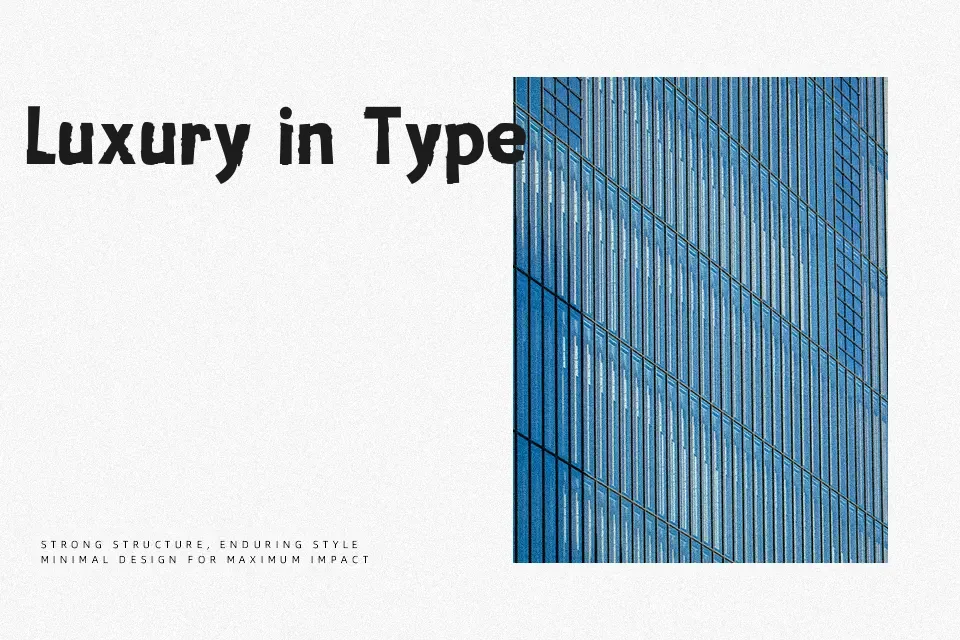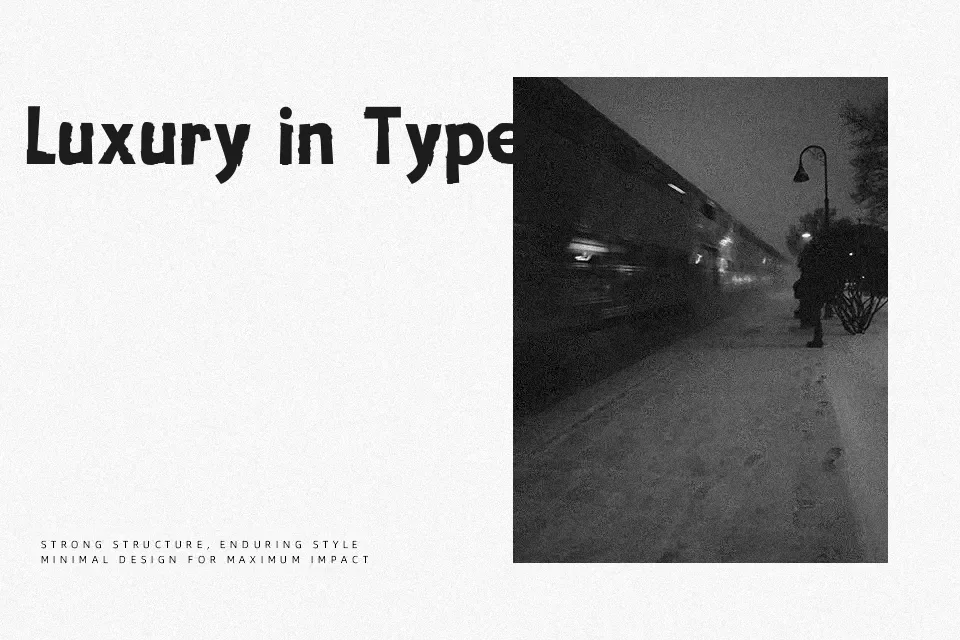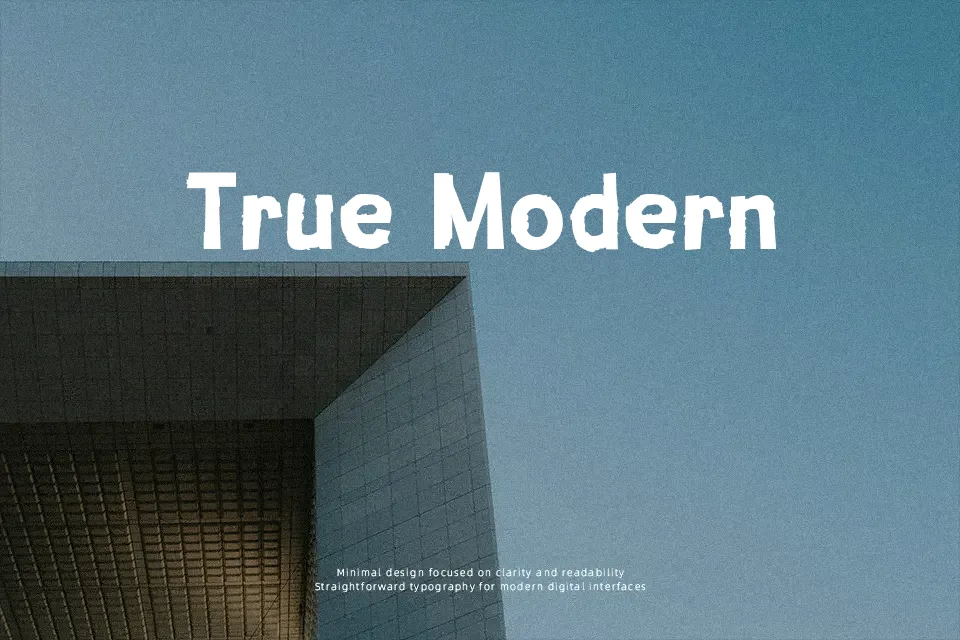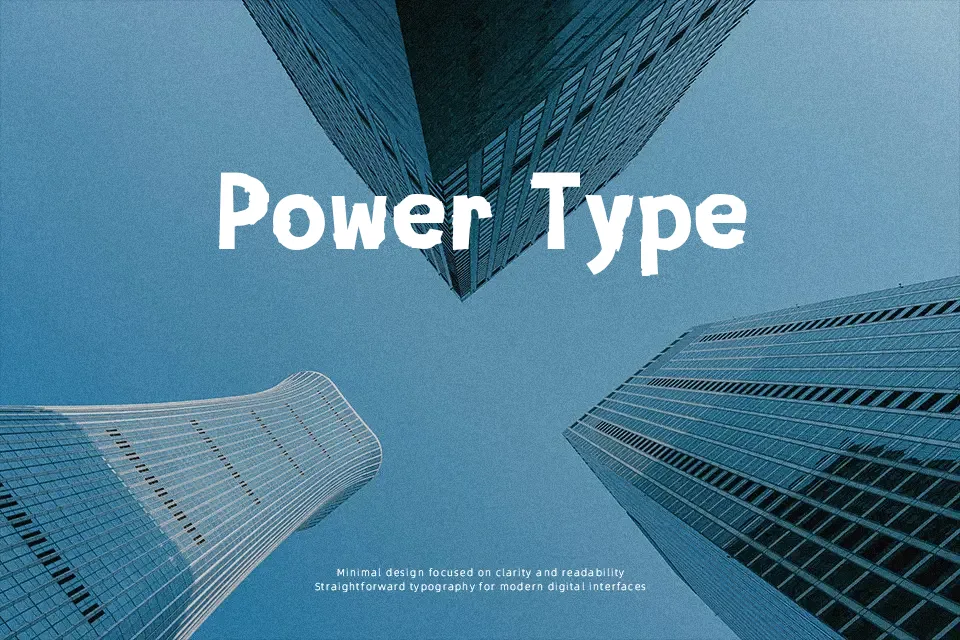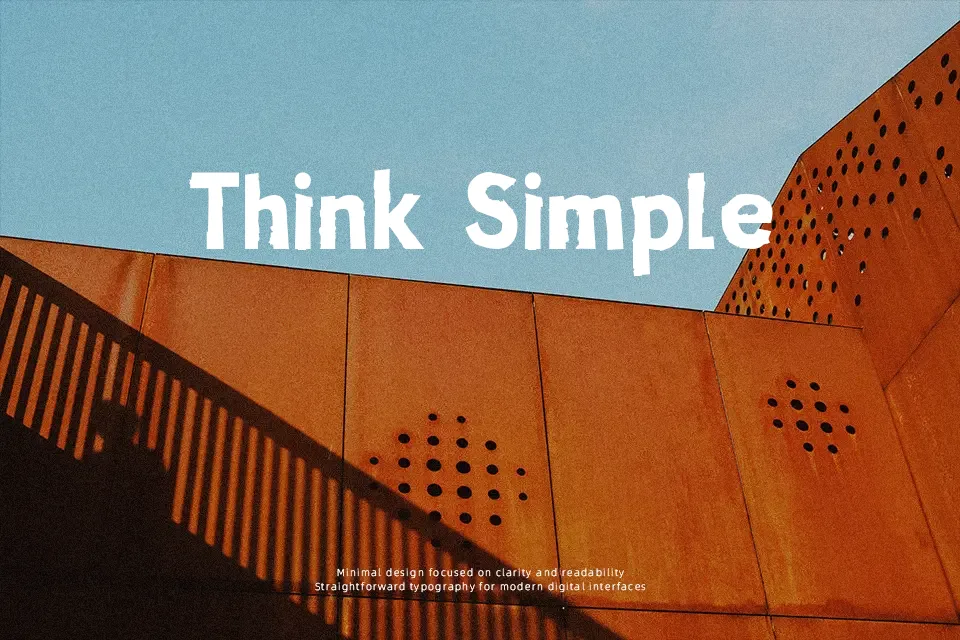
Old Boots Font
Old Boots Font uses heavy, compact letterforms broken by irregular distressed gaps and rough-edged contours. The bold strokes create a forceful silhouette, while the damaged texture gives each character a worn, uneven surface. Spacing appears fairly close, helping short words hold together as strong display text rather than quiet reading matter. It works best at large sizes for posters, T-shirt prints, music artwork, and dramatic headings. The texture adds character in brief phrases, but it can interfere with letter recognition in small captions or continuous copy. This typeface is most convincing when the layout leaves room for its rugged forms.
Best For: concert posters,apparel graphics,dark event flyers,album cover headlines
Perfect for fashion, headline, and music, with a bold and decorative style.